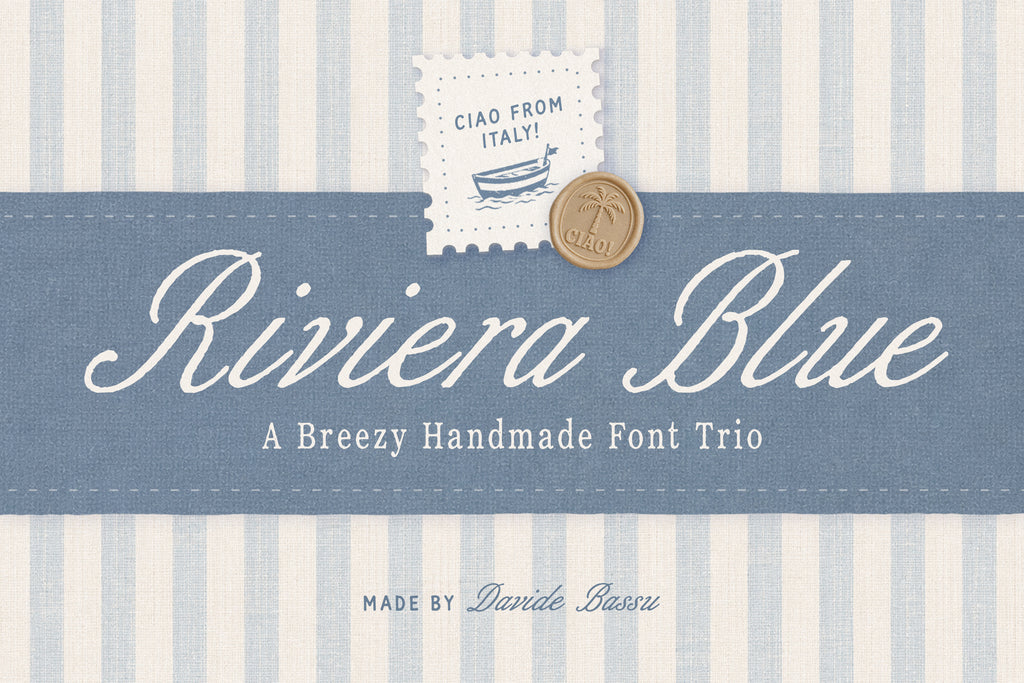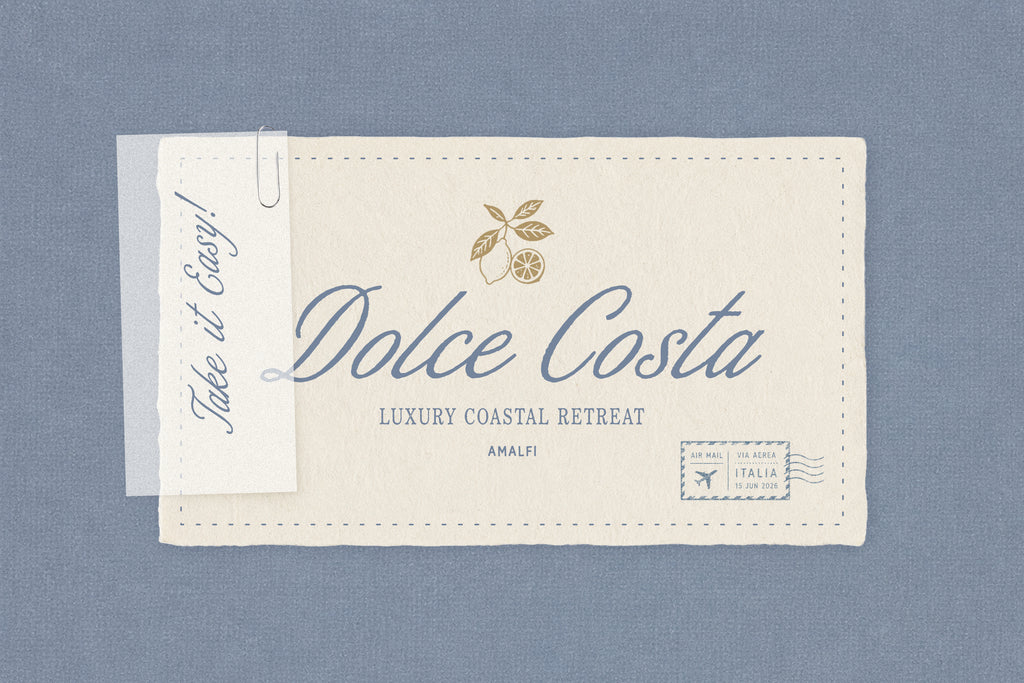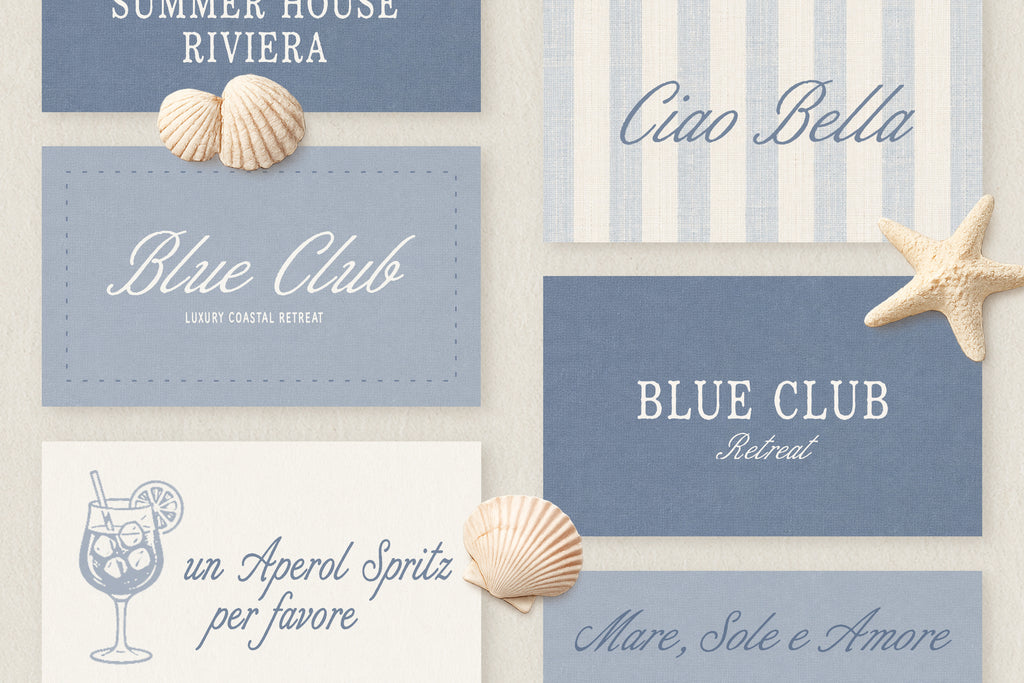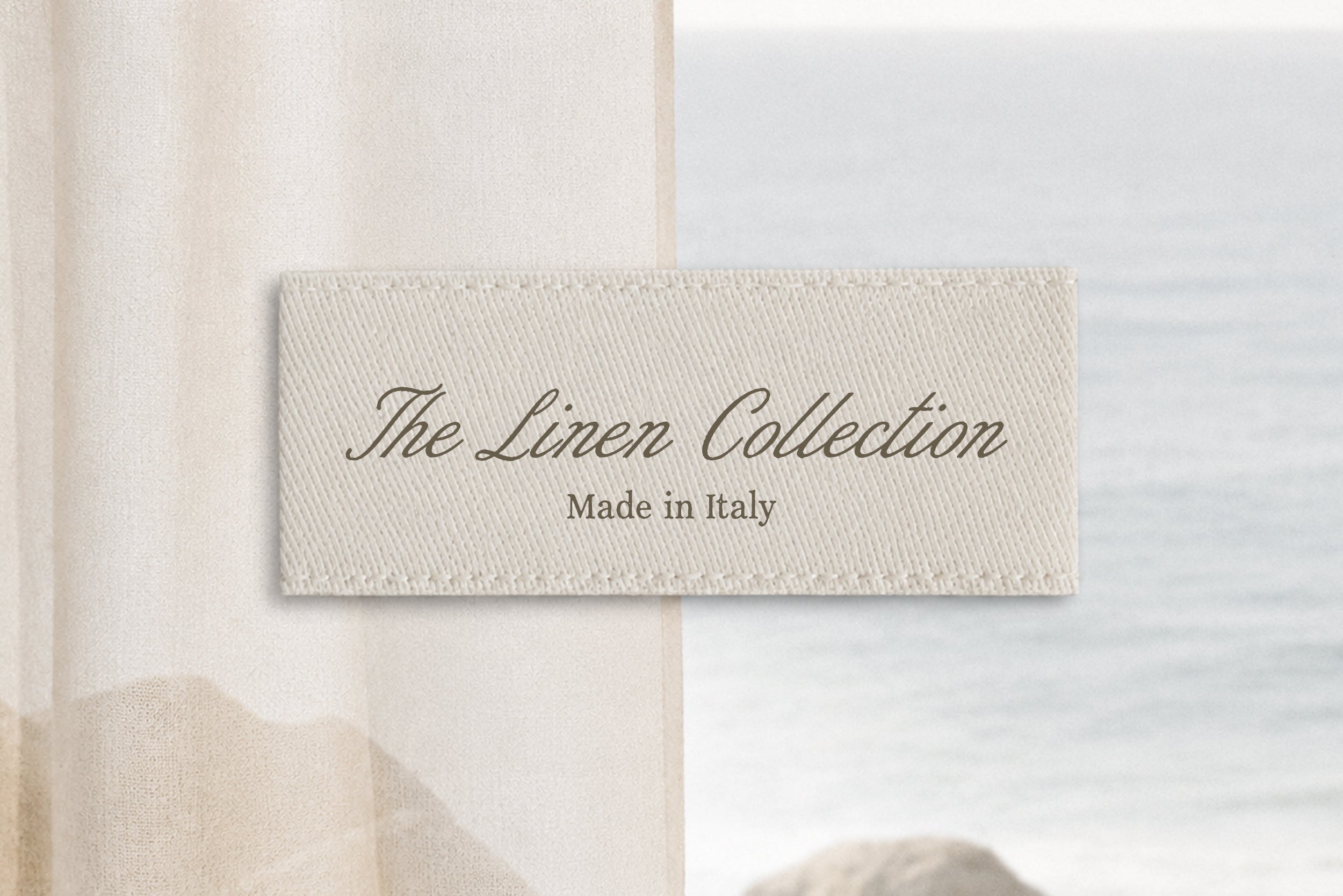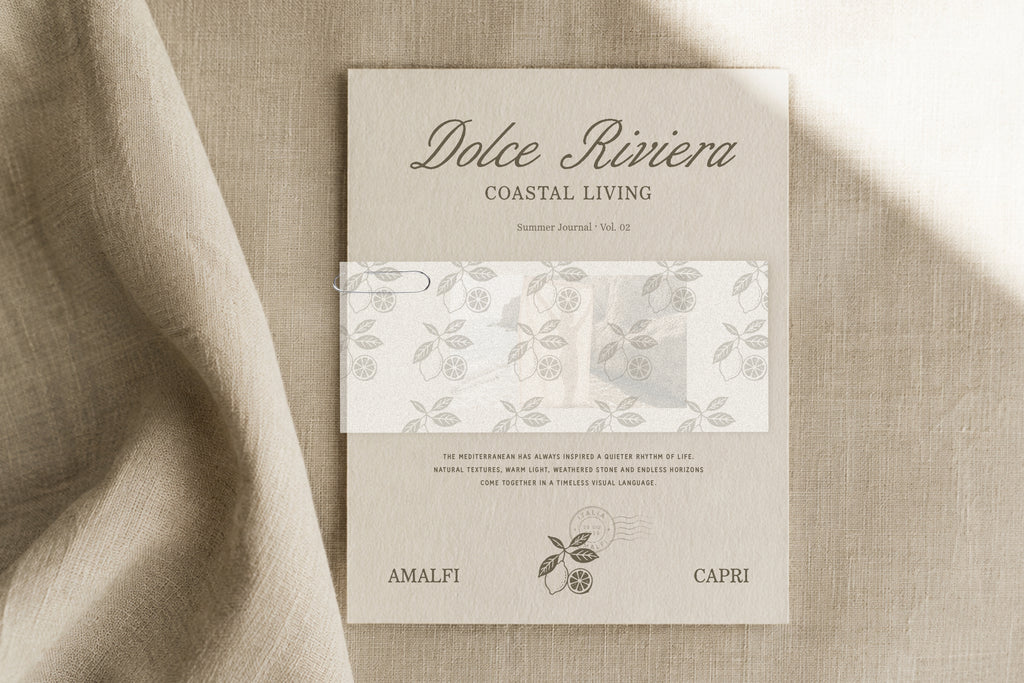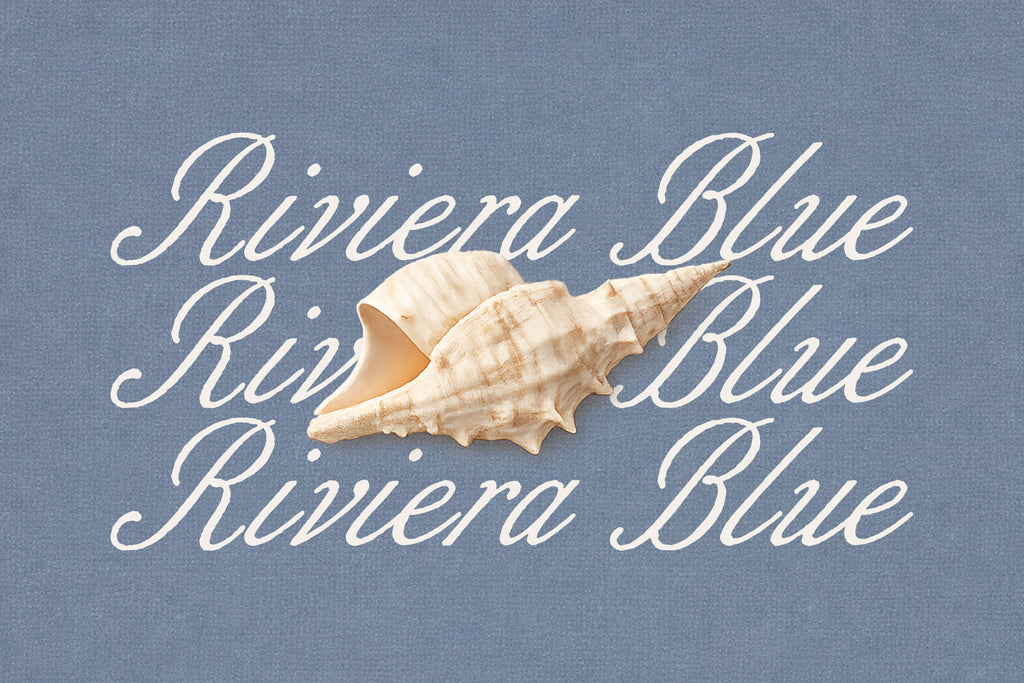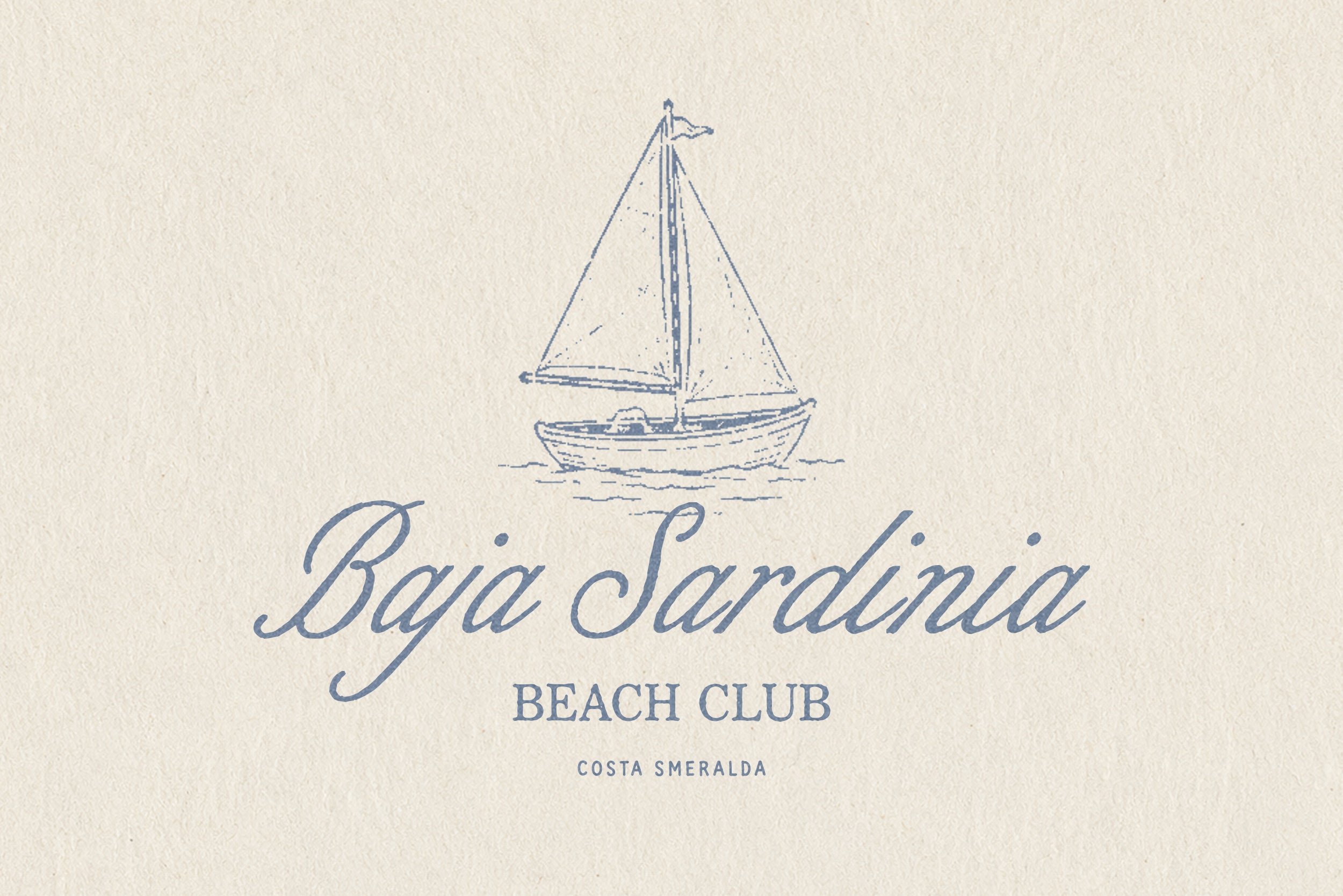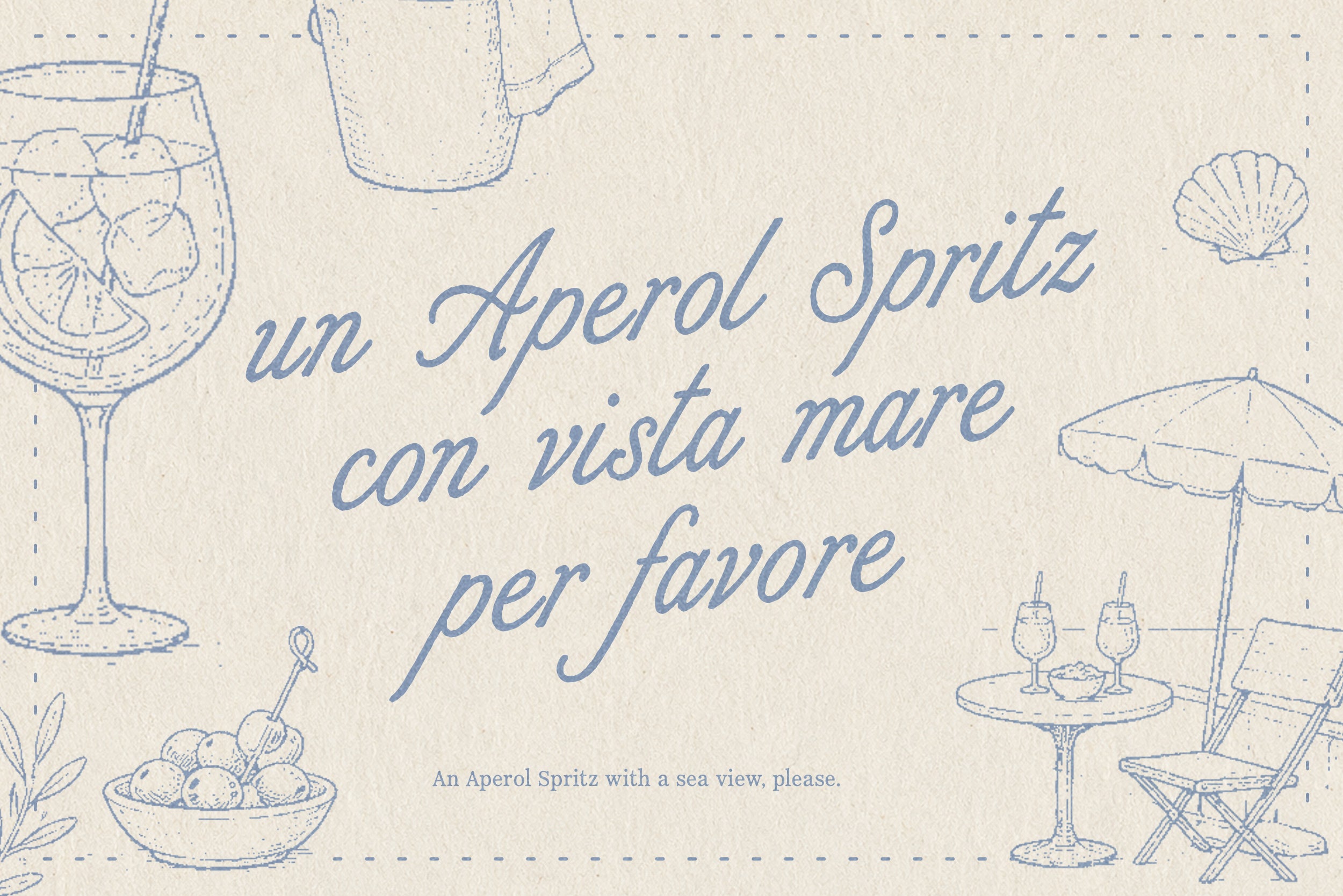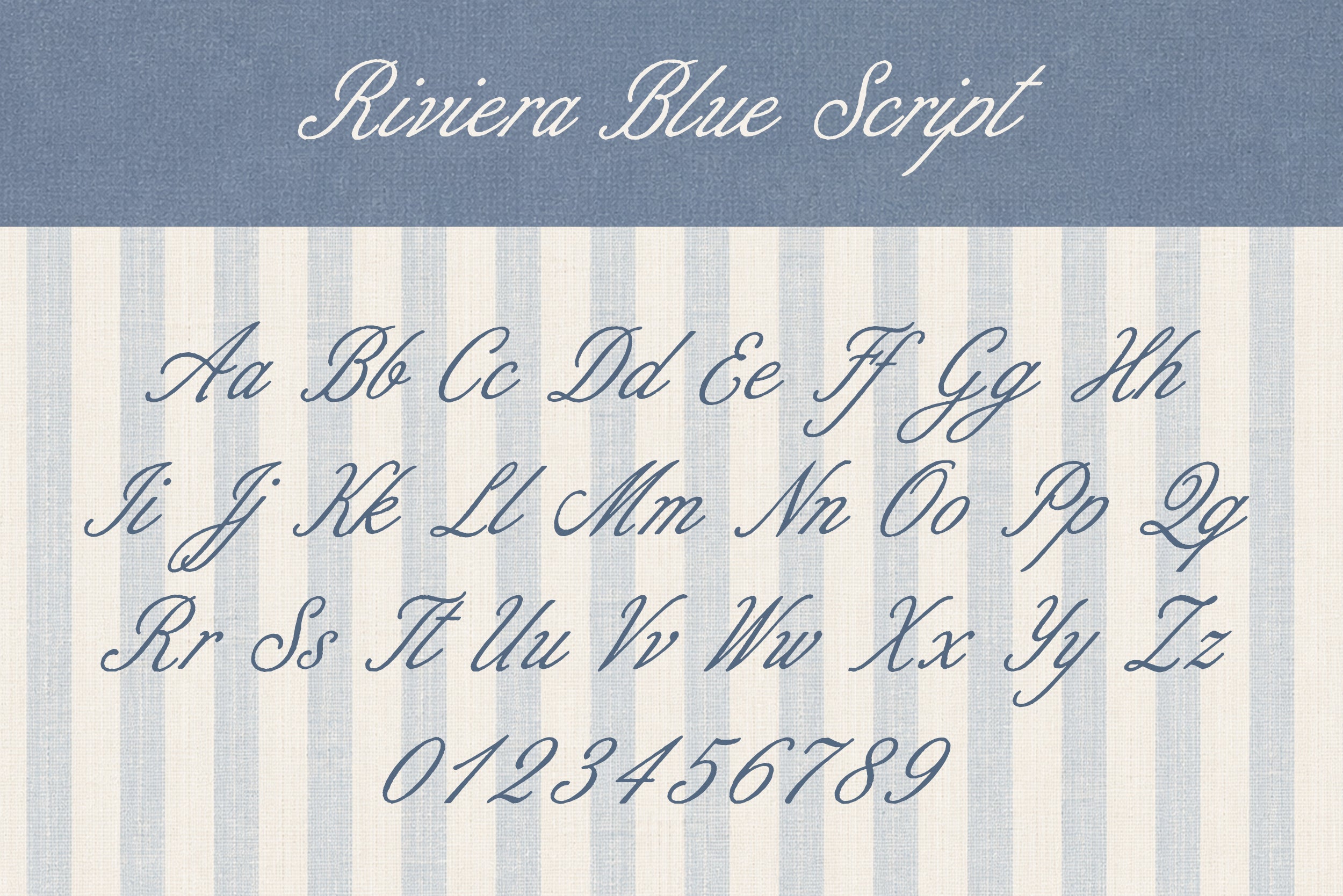
Some places have a way of slowing everything down.
Warm afternoons by the sea, striped umbrellas, handwritten postcards tucked into a beach bag, fresh lemons on the table, salty air, and an Aperol Spritz as the sun begins to set. Riviera Blue draws inspiration from the effortless charm of Mediterranean summers and brings that relaxed atmosphere into your creative projects.
This versatile font trio includes a handwritten script, a handmade sans, and an elegant display serif. Each typeface has its own personality while being carefully designed to work together as a complete collection, making it easy to mix styles across branding, packaging, editorial design, wedding stationery, social media, and more.
Every letter was crafted with subtle texture and natural imperfections to preserve an authentic handmade appearance without sacrificing readability or versatility.
The Collection
Riviera Blue Script
A relaxed handwritten script with flowing curves, perfect for logos, headlines, packaging, and signature-inspired typography.
Riviera Blue Sans
A clean handmade sans that pairs naturally with the script, ideal for supporting text, branding, packaging, menus, and labels.
Riviera Blue Serif
A refined display serif designed for editorial layouts, premium branding, invitations, and sophisticated typography.